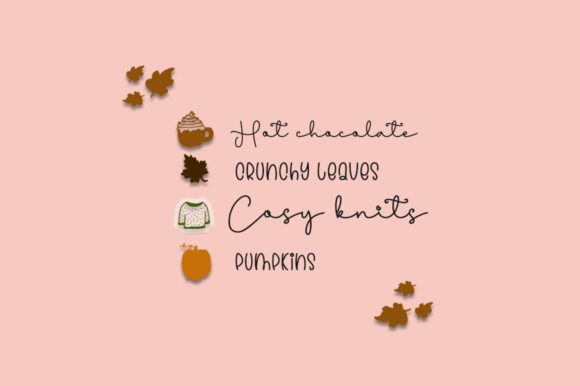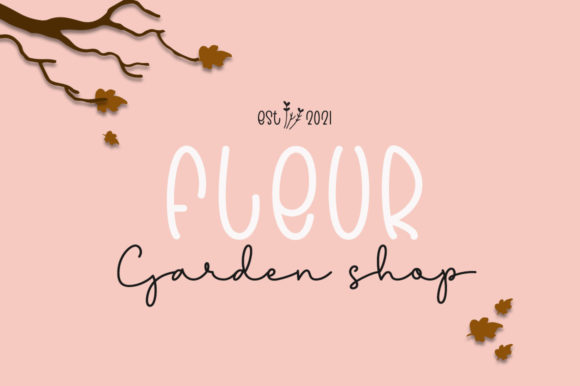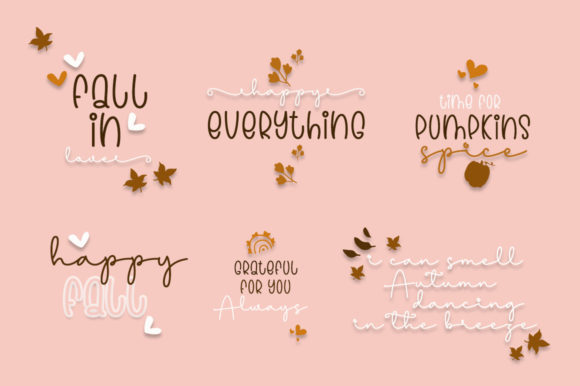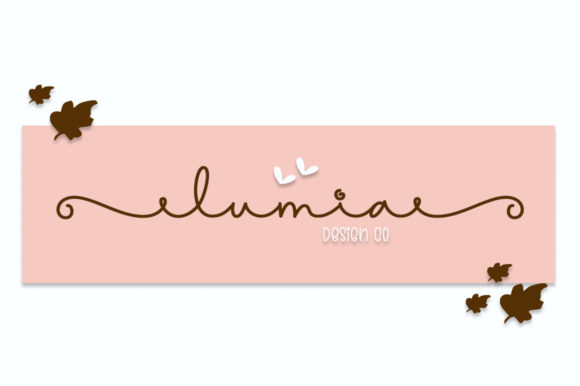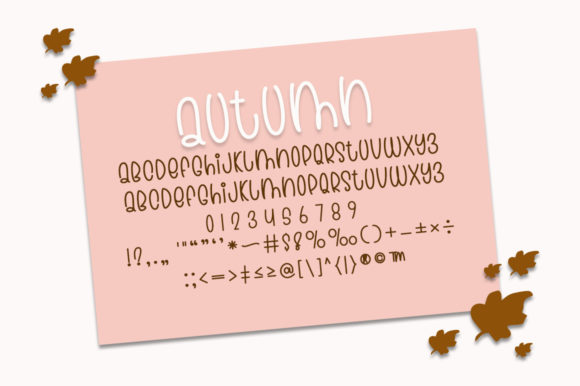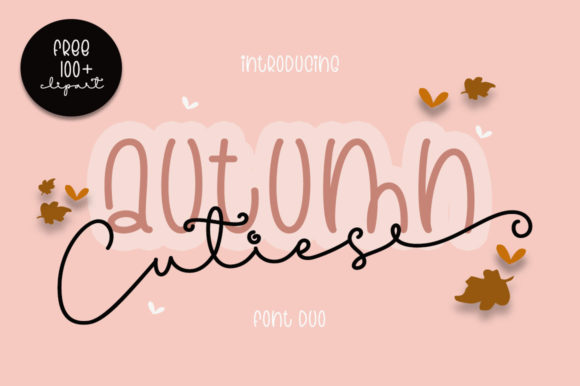
Introducing Cuties Autumn Duo Font: The Perfect Addition to Your Design Collection
Are you a designer or crafter looking for a unique and captivating font to elevate your creative projects? Look no further than the Cuties Autumn Duo Font, a lovely duo font that combines a display font with a script font to create a truly special offering. In this article, we’ll dive into the features and benefits of this beautiful font, and explore how it can help you take your designs to the next level.
What is Cuties Autumn Duo Font?
Cuties Autumn Duo Font is a carefully crafted duo font that includes both a display font and a script font, making it an incredibly versatile addition to your design collection. The display font is perfect for headlines, titles, and other attention-grabbing elements, while the script font adds a touch of elegance and sophistication to any design. What sets this font apart is its PUA (Private Use Area) encoding, which allows you to access all of the glyphs and swashes with ease.
The Benefits of PUA Encoding
PUA encoding is a game-changer for designers and crafters. It means that you can access a wide range of additional characters, glyphs, and swashes that can be used to add unique touches to your designs. With Cuties Autumn Duo Font, you’ll be able to create complex and beautiful designs without the need for additional software or complicated workarounds. The PUA encoding ensures that you can easily access all of the font’s features, making it simple to get the look you want.
The Sweet Style of Cuties Autumn Duo Font
One of the standout features of Cuties Autumn Duo Font is its incredibly sweet style. The font is designed to be both playful and elegant, making it perfect for a wide range of design projects. Whether you’re creating invitations, greeting cards, or social media graphics, this font is sure to capture the attention of your audience. The combination of the display and script fonts creates a beautiful contrast that adds depth and interest to any design.
Using Cuties Autumn Duo Font in Your Designs
So, how can you use Cuties Autumn Duo Font in your designs? The possibilities are endless! Here are a few ideas to get you started:
- Create stunning invitations for weddings, birthday parties, or other special occasions.
- Design beautiful greeting cards for holidays, birthdays, or just because.
- Develop eye-catching social media graphics that will help your brand stand out.
- Make gorgeous posters, flyers, or brochures for businesses or events.
Tips for Getting the Most Out of Cuties Autumn Duo Font
To get the most out of Cuties Autumn Duo Font, here are a few tips to keep in mind:
- Experiment with different font combinations to find the perfect pairing for your design.
- Take advantage of the PUA encoding to add unique touches to your designs.
- Don’t be afraid to get creative and try new things – the sweet style of this font is perfect for pushing the boundaries of design.
In conclusion, Cuties Autumn Duo Font is a must-have addition to any design collection. With its unique combination of display and script fonts, PUA encoding, and sweet style, this font is perfect for designers and crafters looking to create stunning designs. Whether you’re working on a personal project or a client’s, this font is sure to impress. So why wait? Download Cuties Autumn Duo Font today and start creating spectacular designs that will leave a lasting impression.
Key Features of Cuties Autumn Duo Font:
- Duo font (display and script)
- Incredibly sweet style
- Perfect for a wide range of design projects, including invitations, greeting cards, social media graphics, and more
By incorporating Cuties Autumn Duo Font into your design workflow, you’ll be able to create beautiful, eye-catching designs that will help you stand out from the crowd. So why not give it a try? With its ease of use, versatility, and stunning style, this font is sure to become a favorite in your design arsenal.